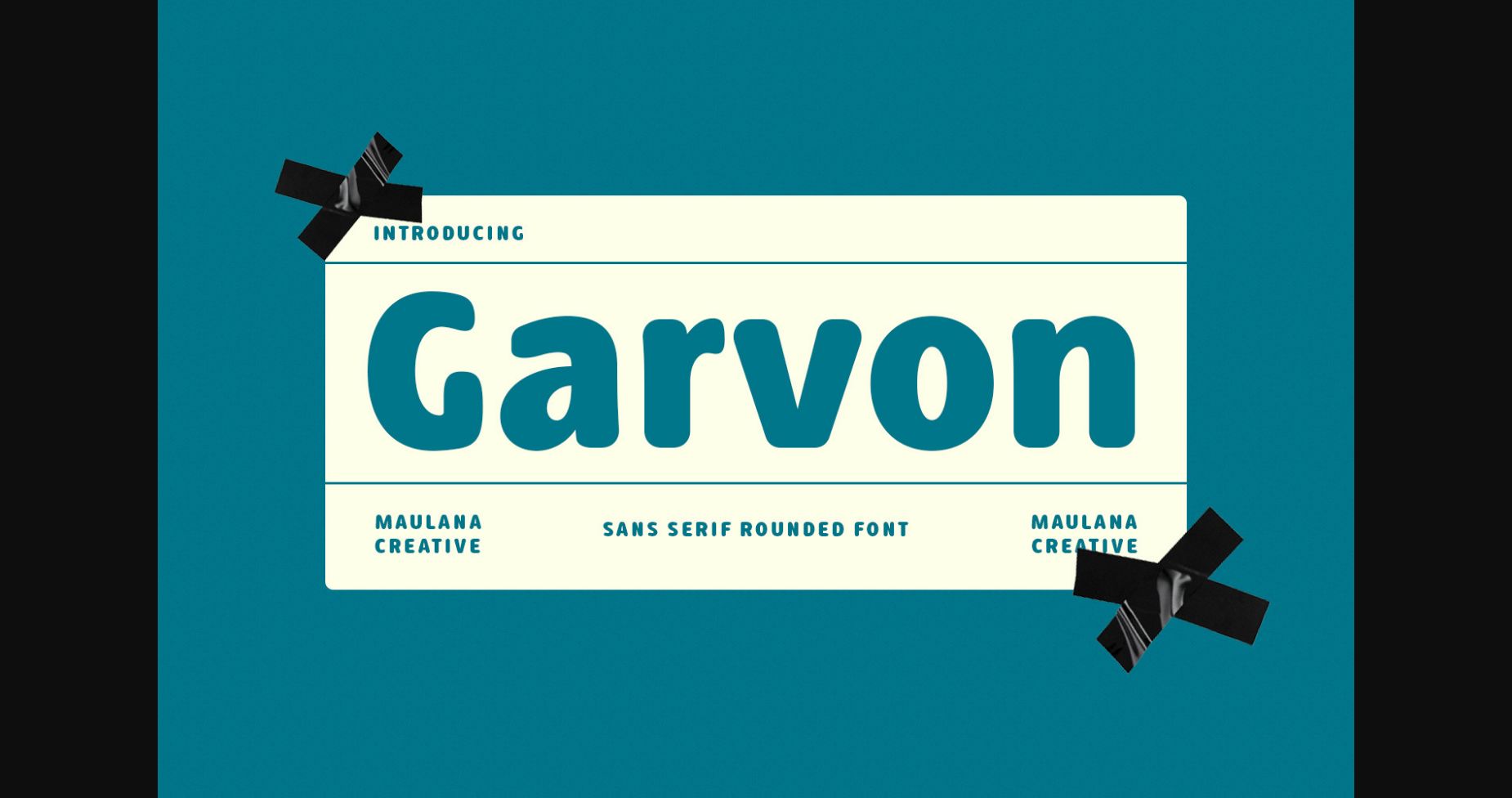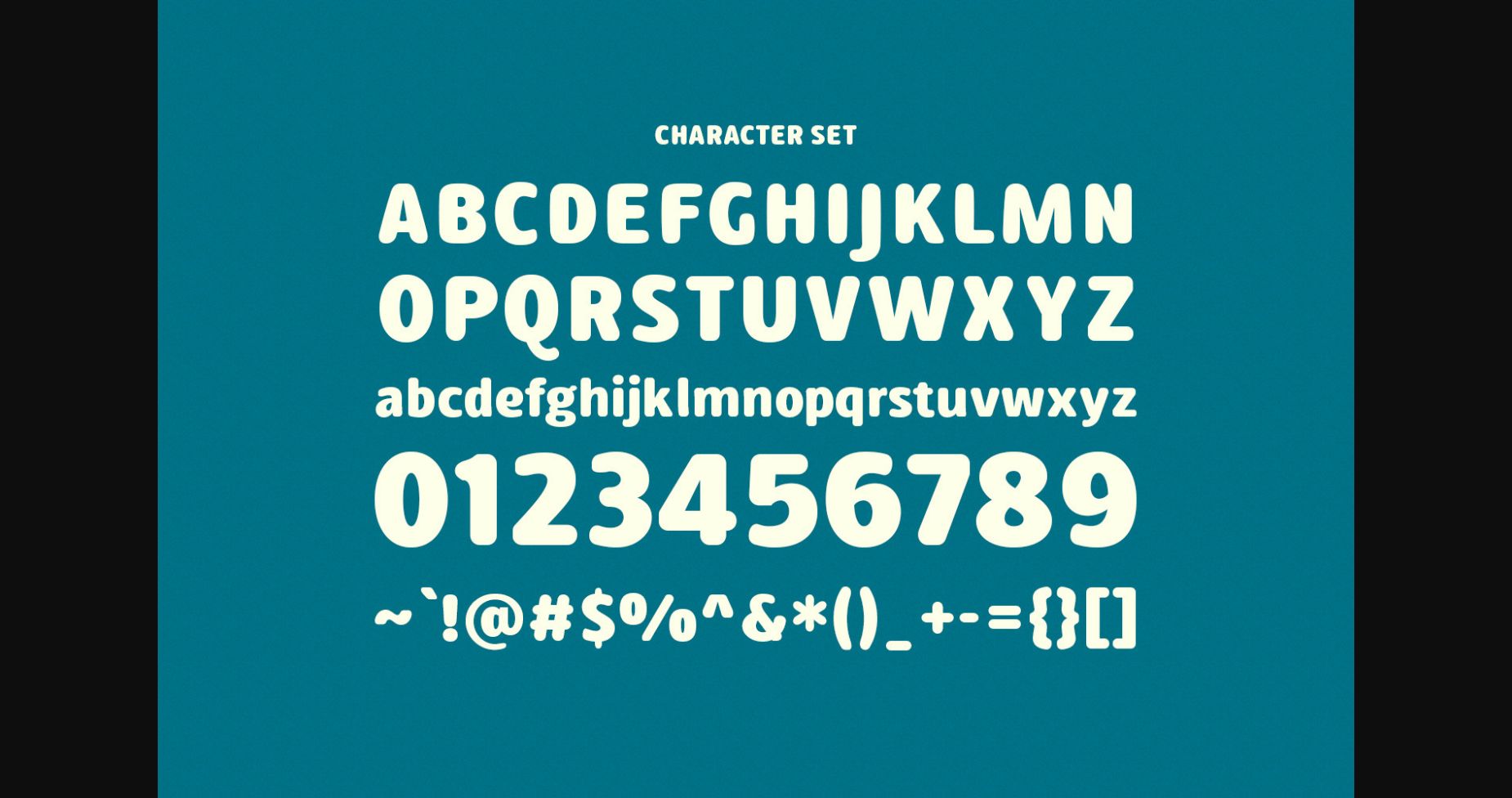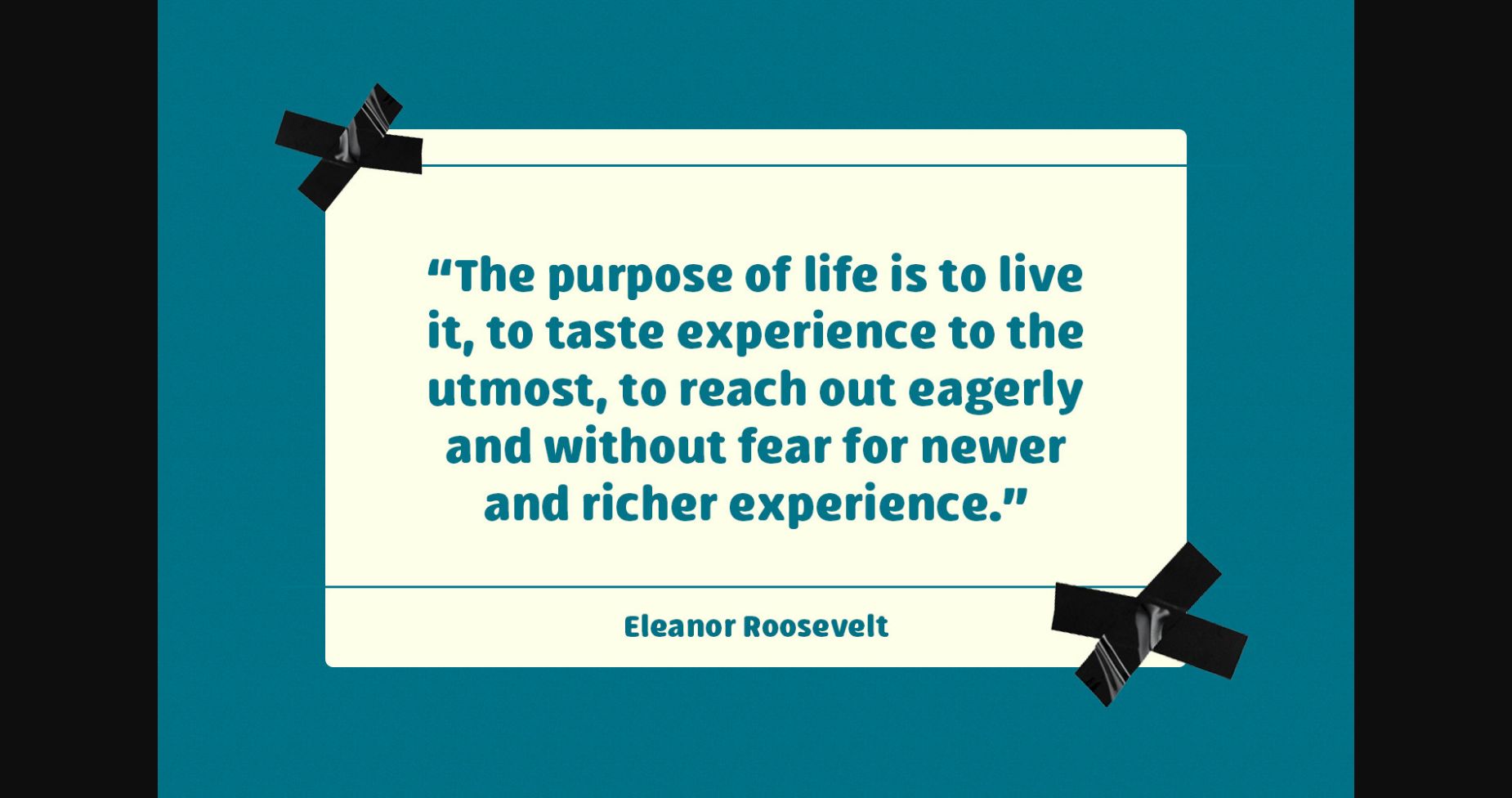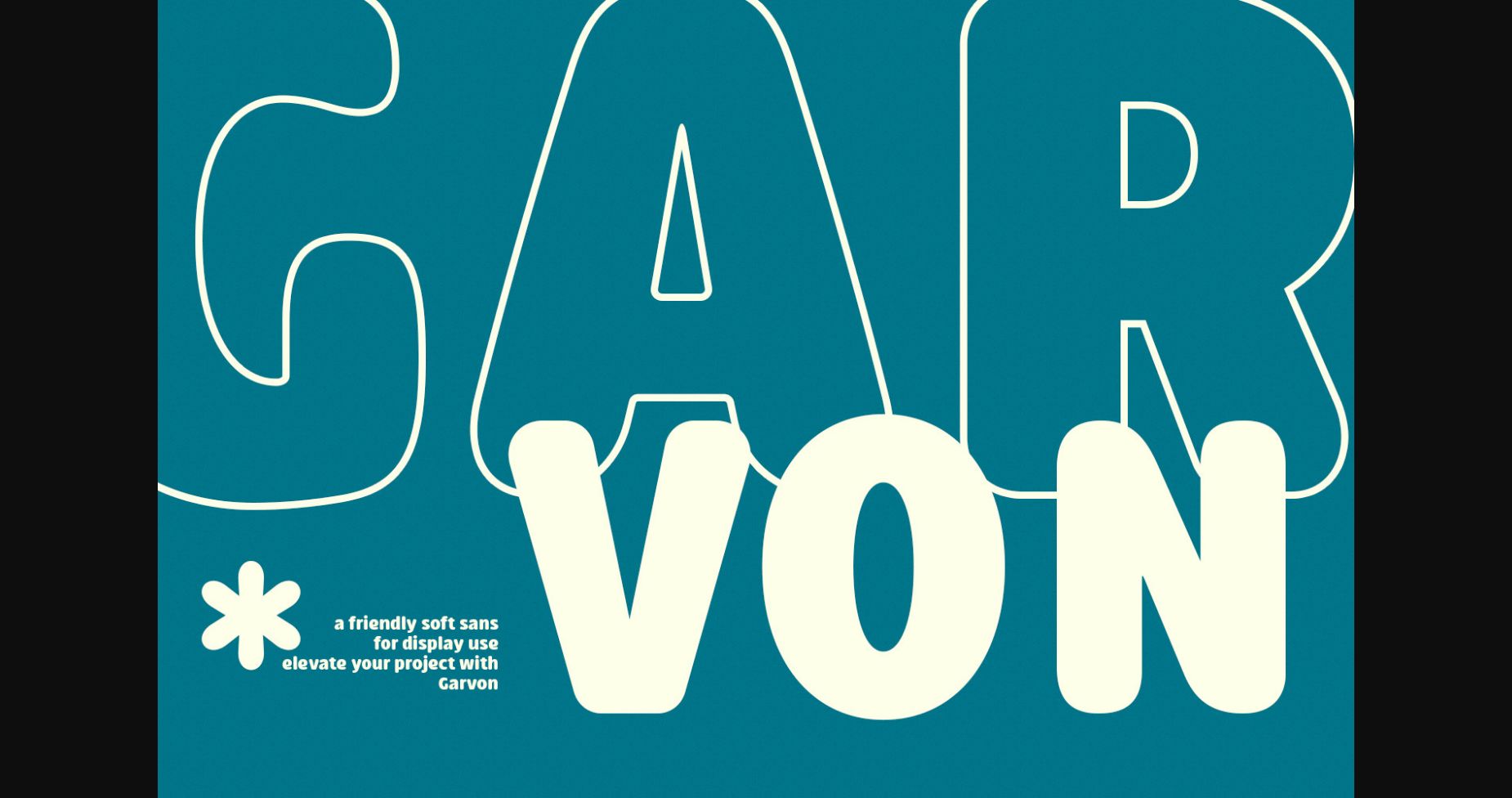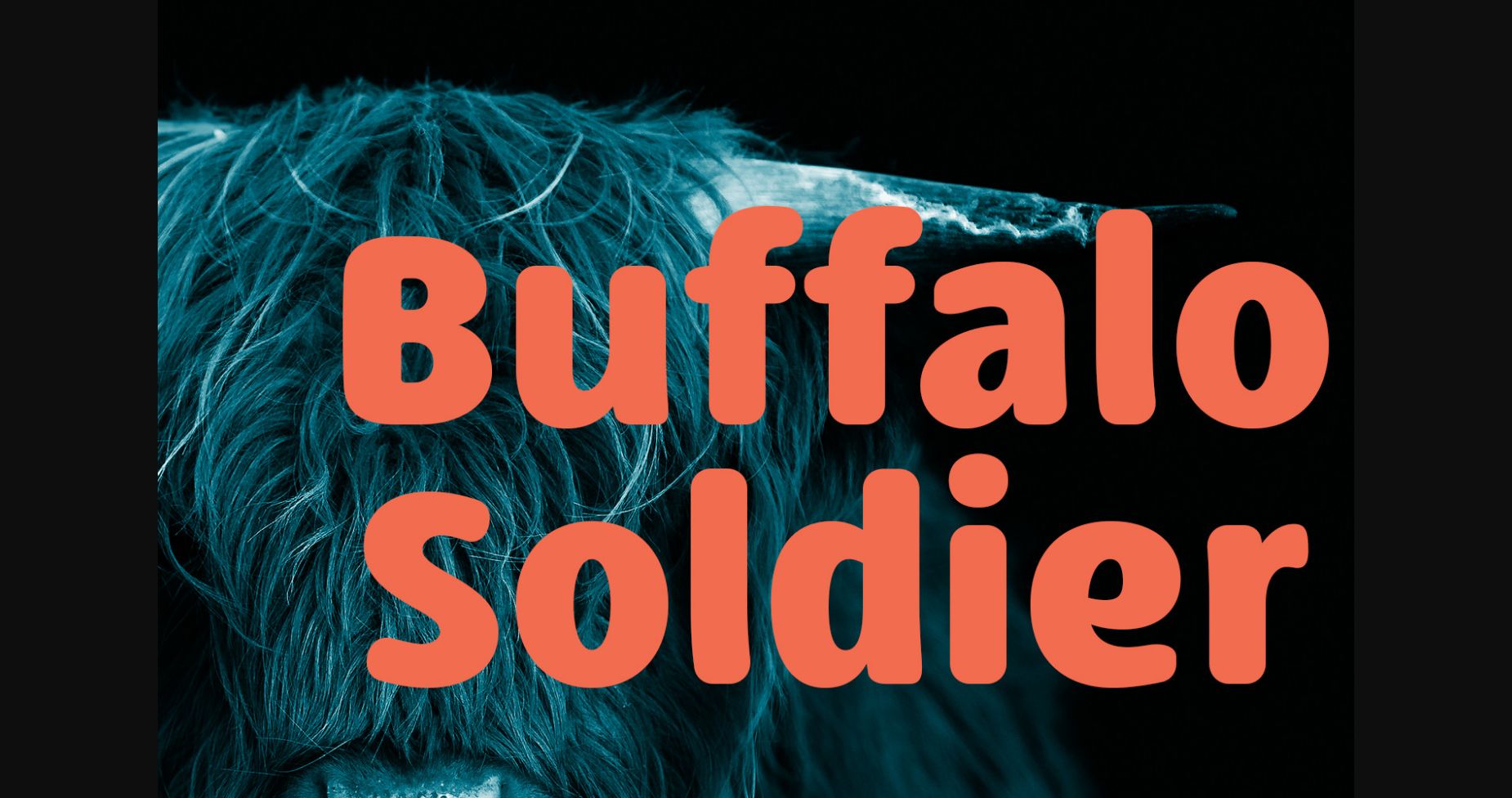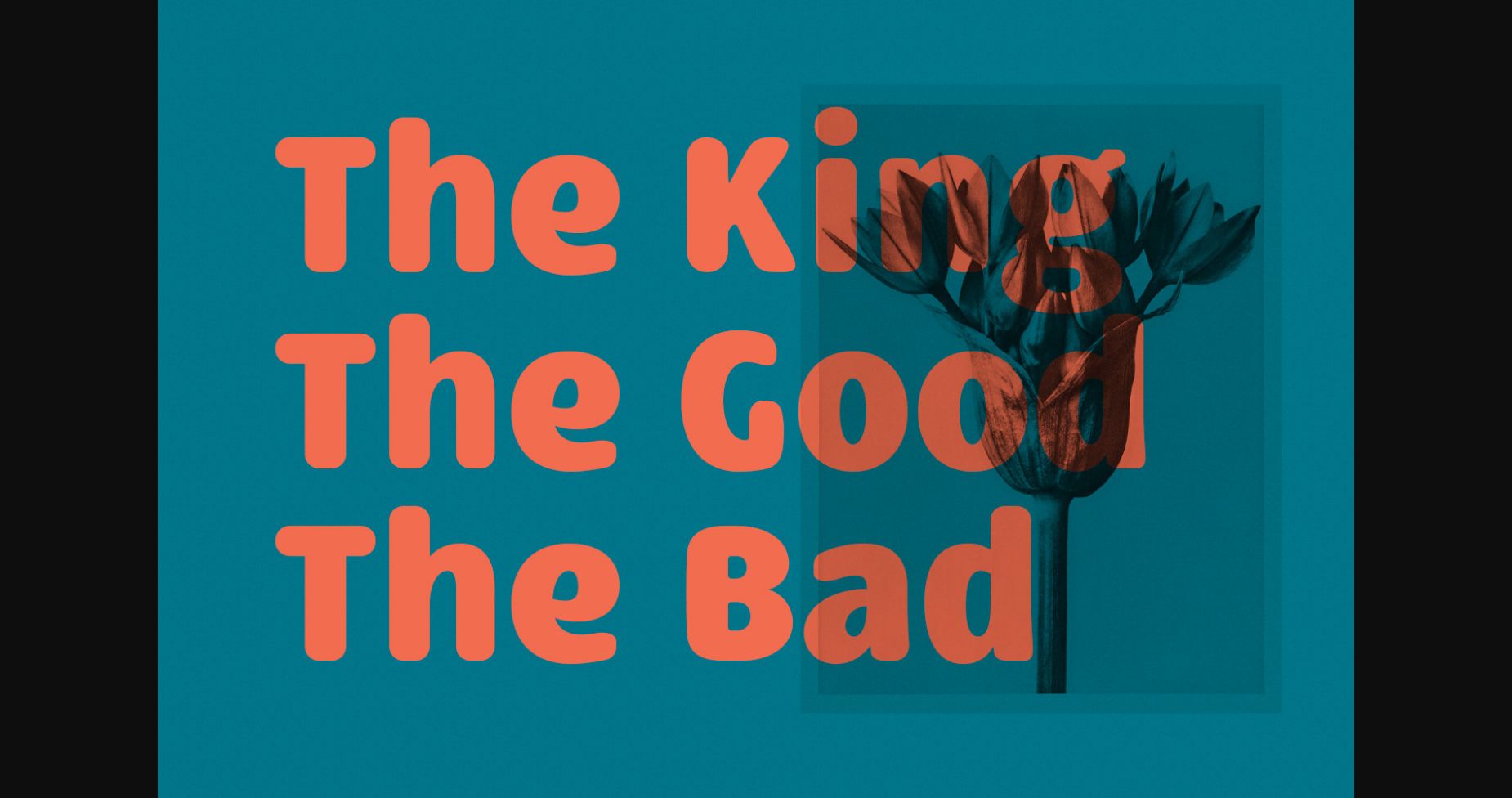
About Garvon Font
Meet our newest sans-serif font, “Garvon”. With its clean and casual design, Easygoing is perfect for modern and relaxed designs. Each letter is crafted with a friendly and approachable look, making it ideal for branding and advertising projects. Bring a touch of ease to your designs with Garvon, the modern and casual sans-serif font.